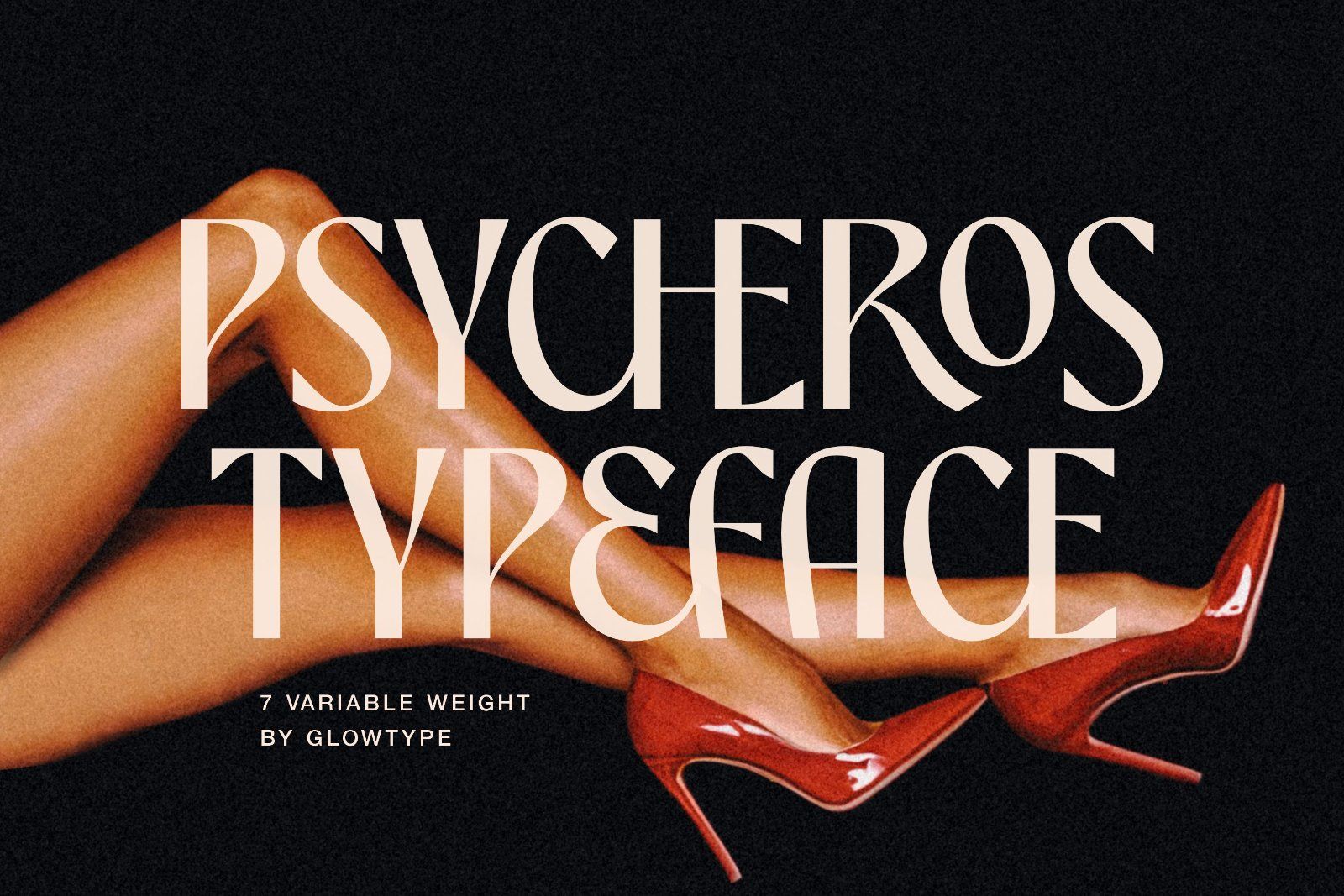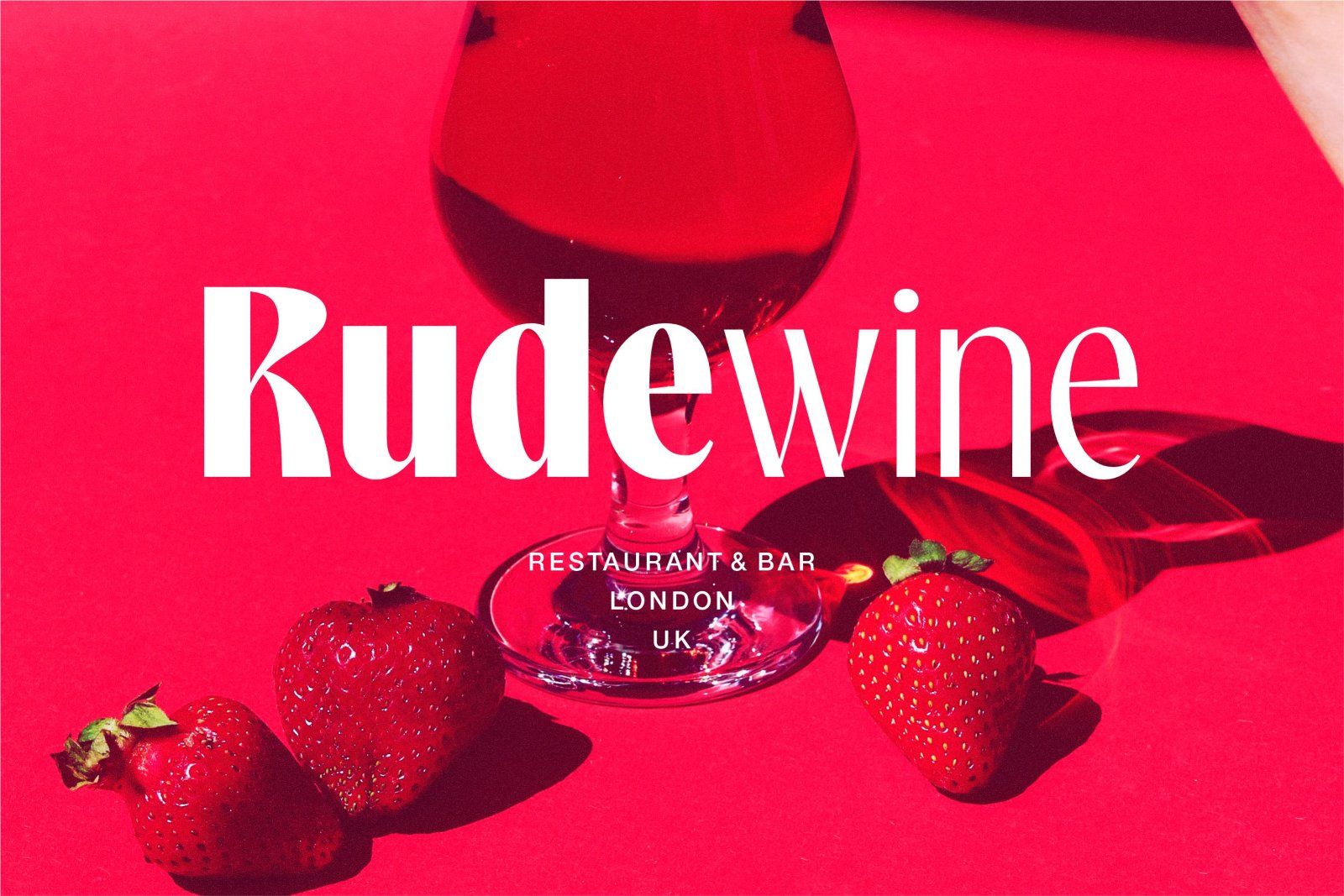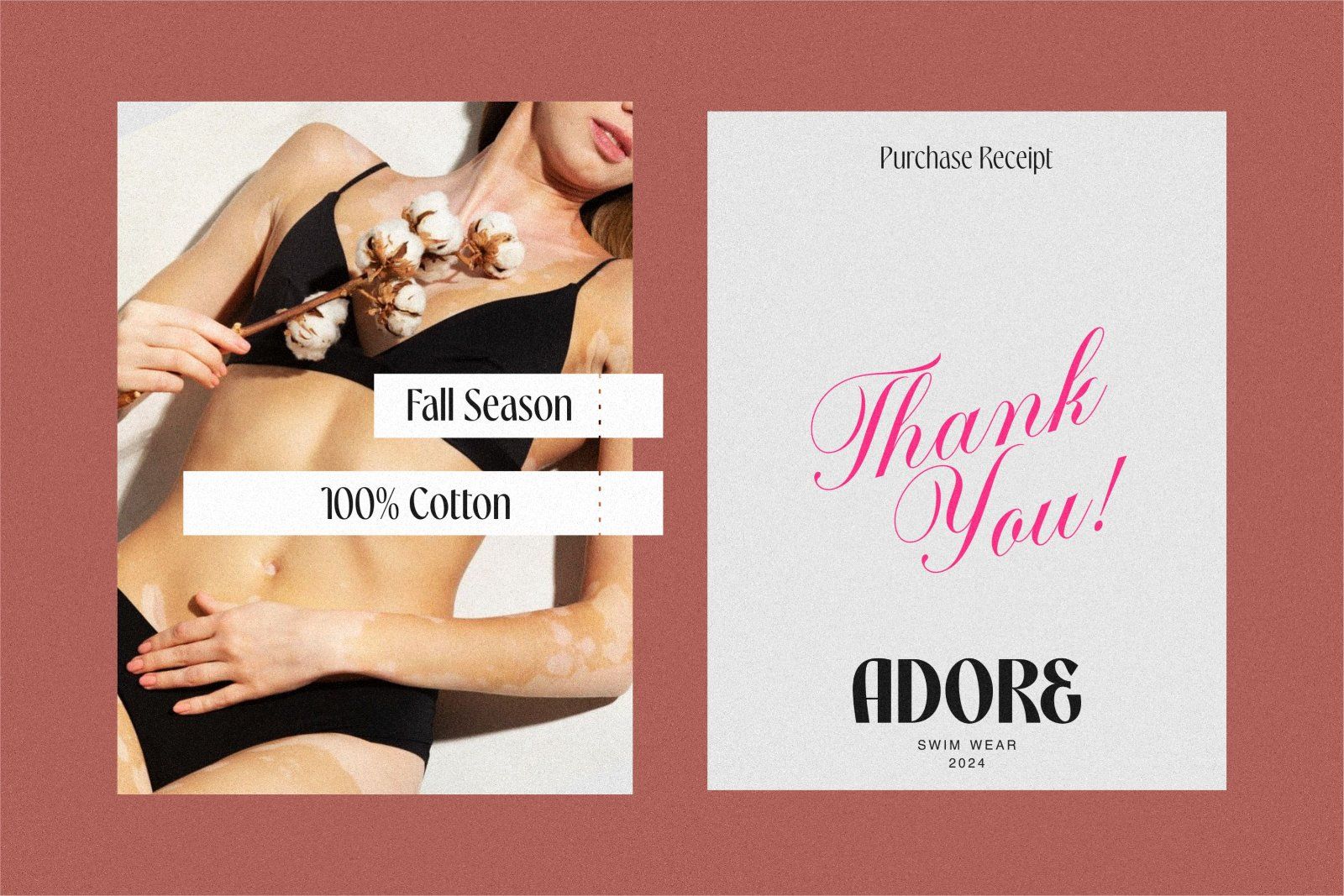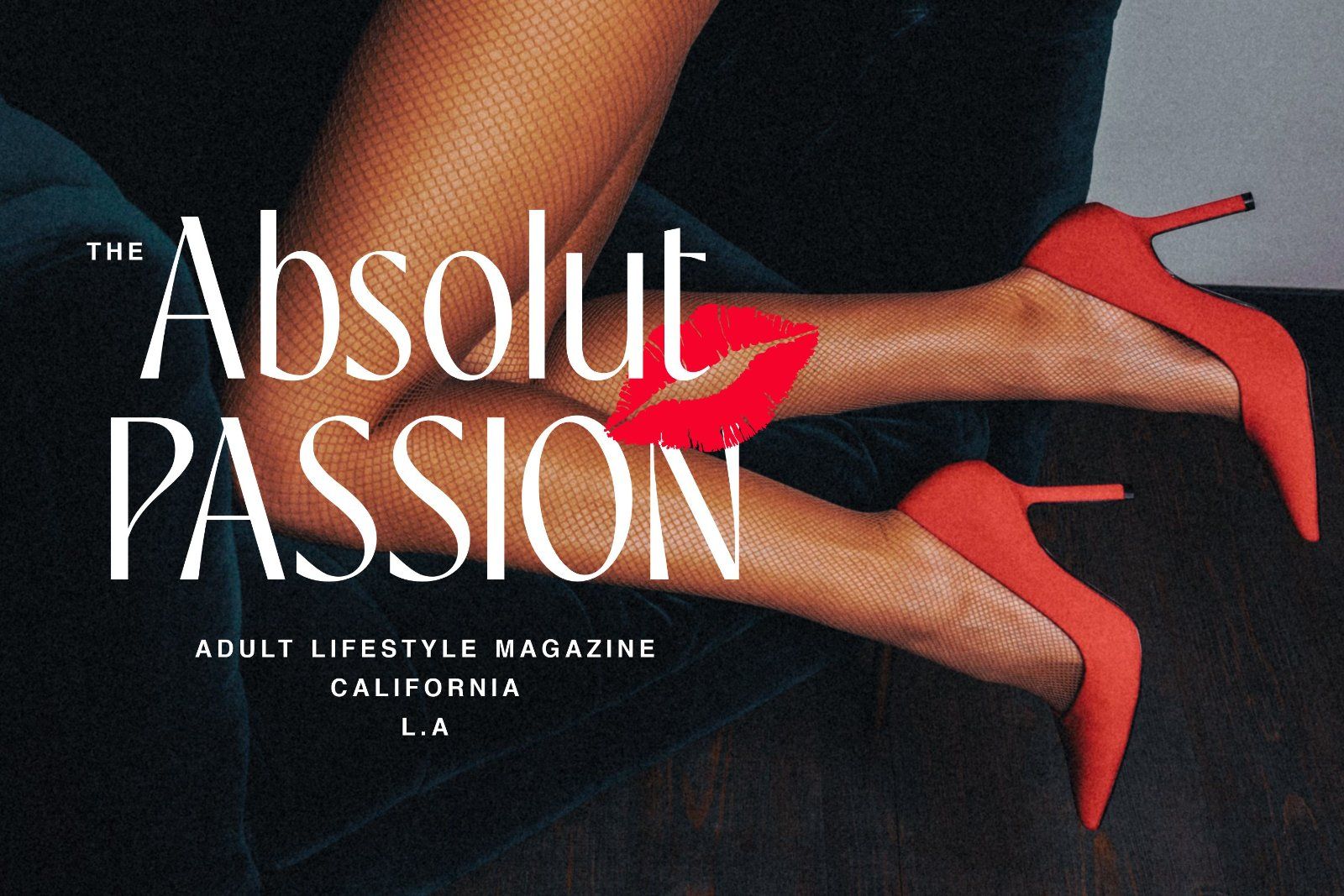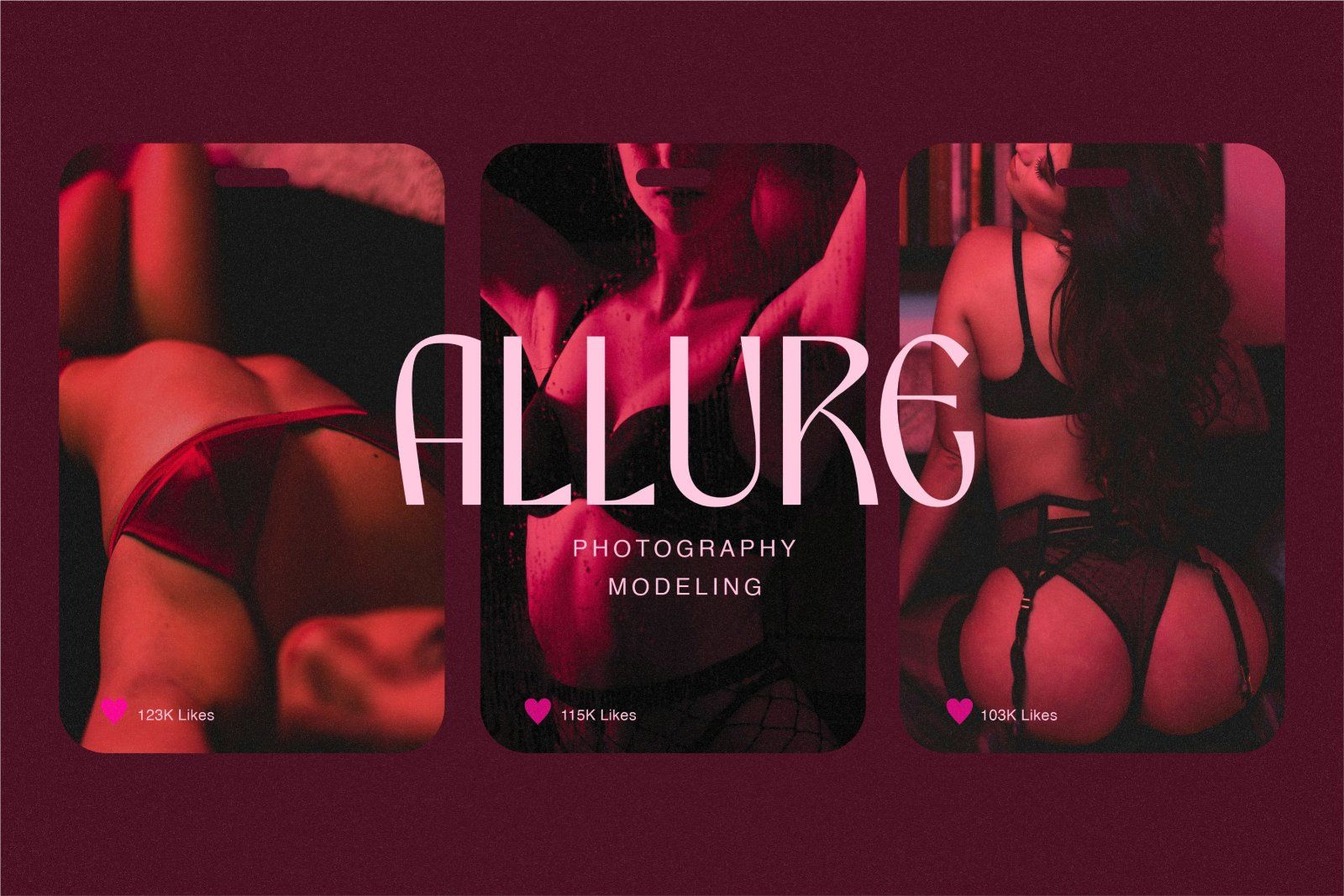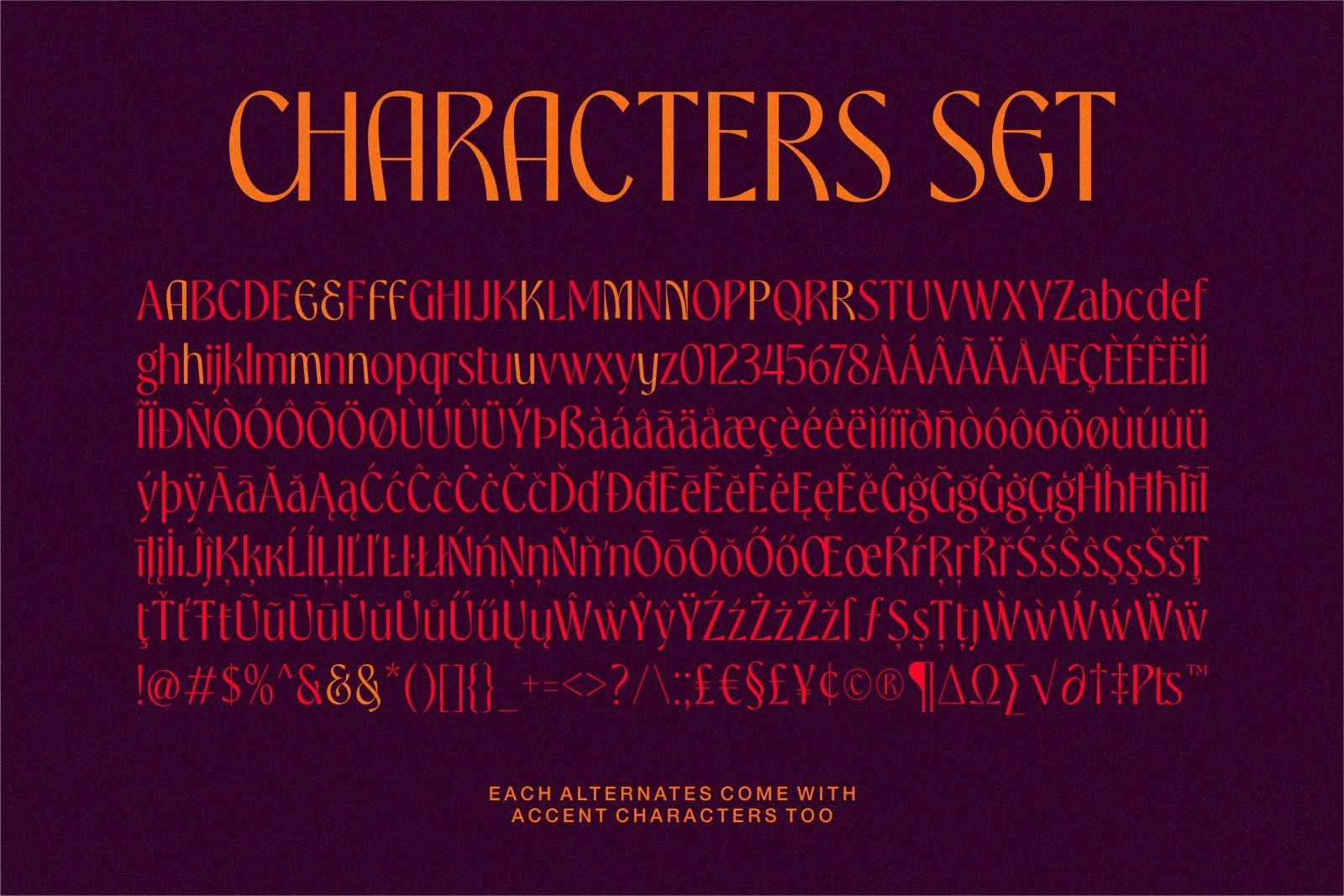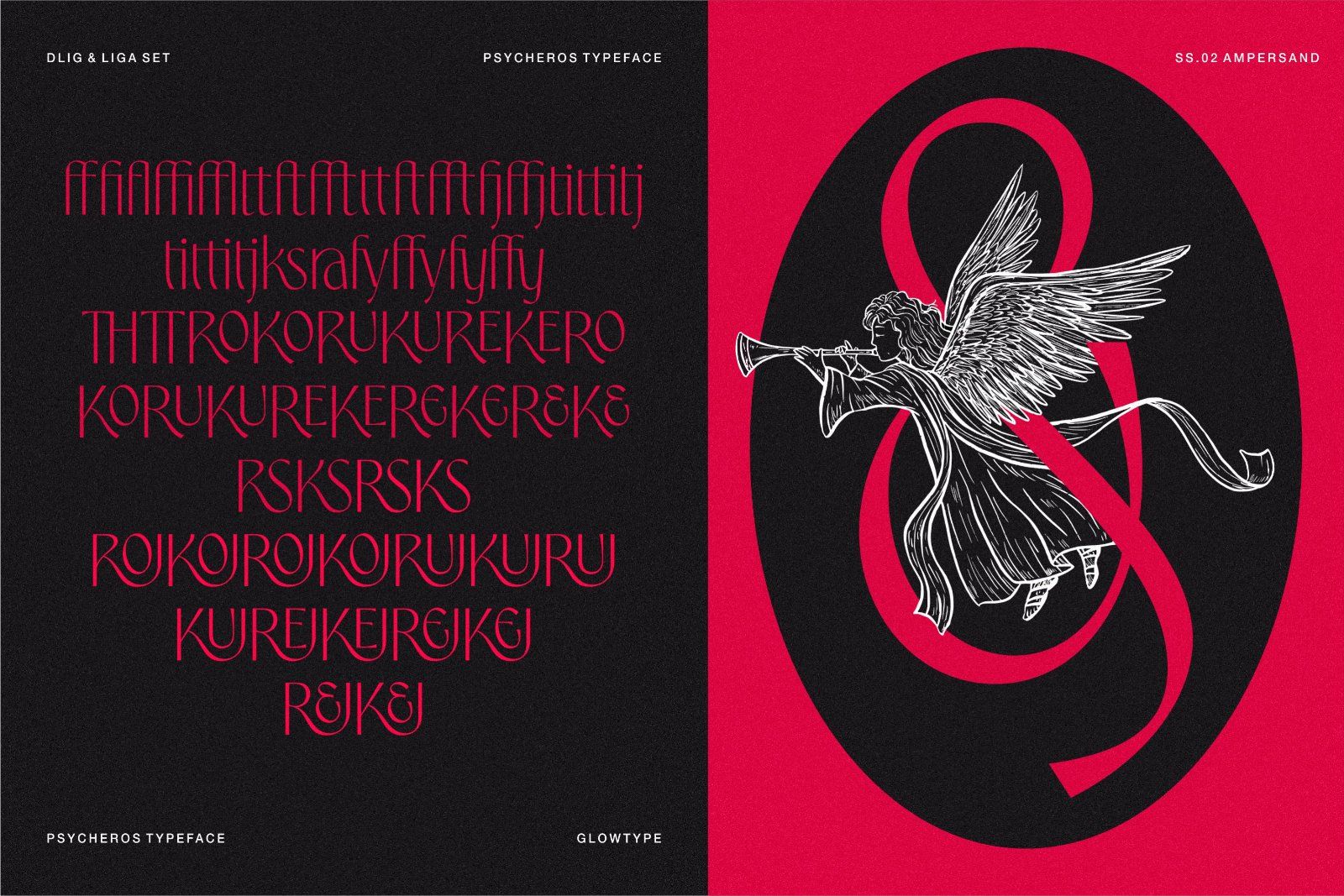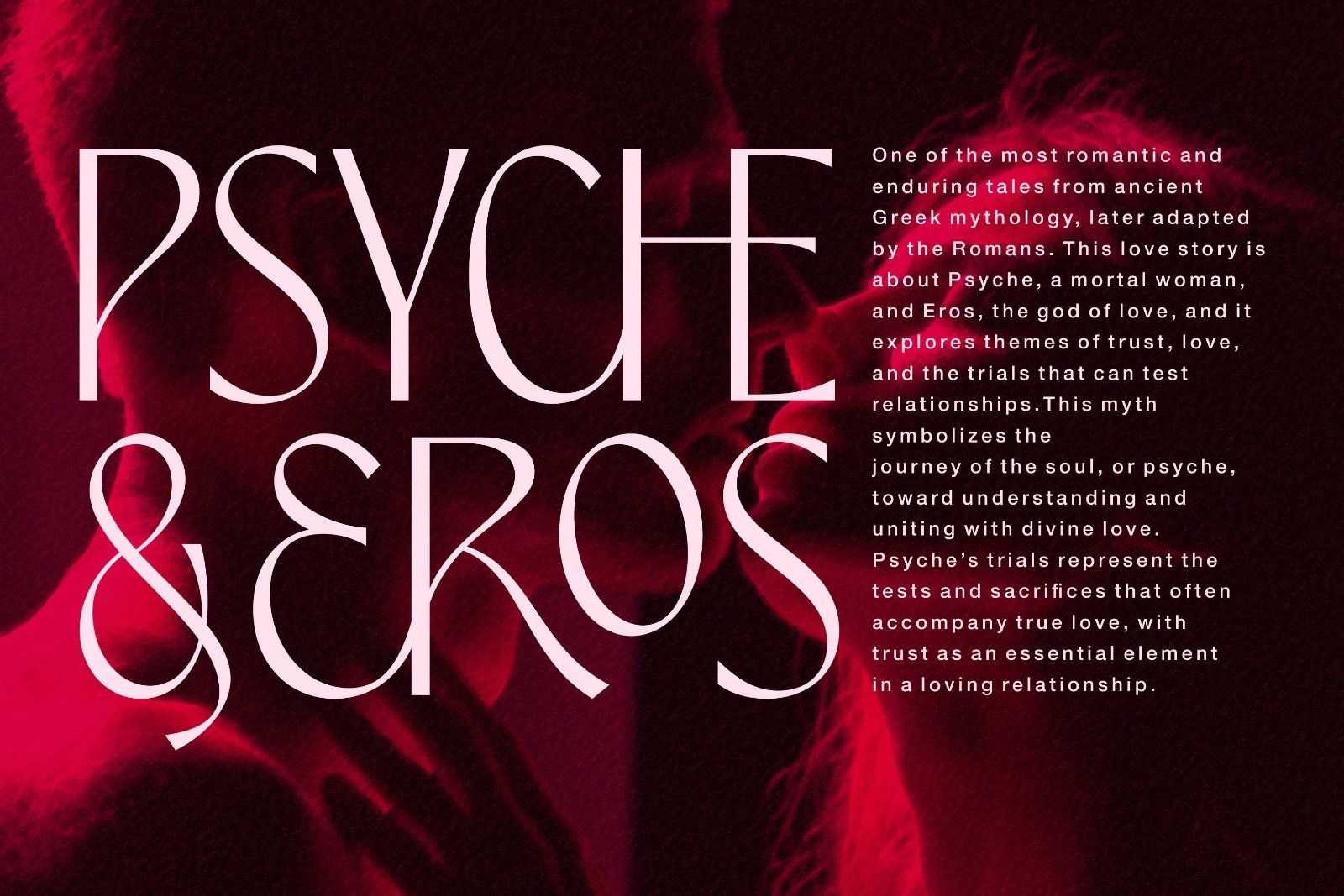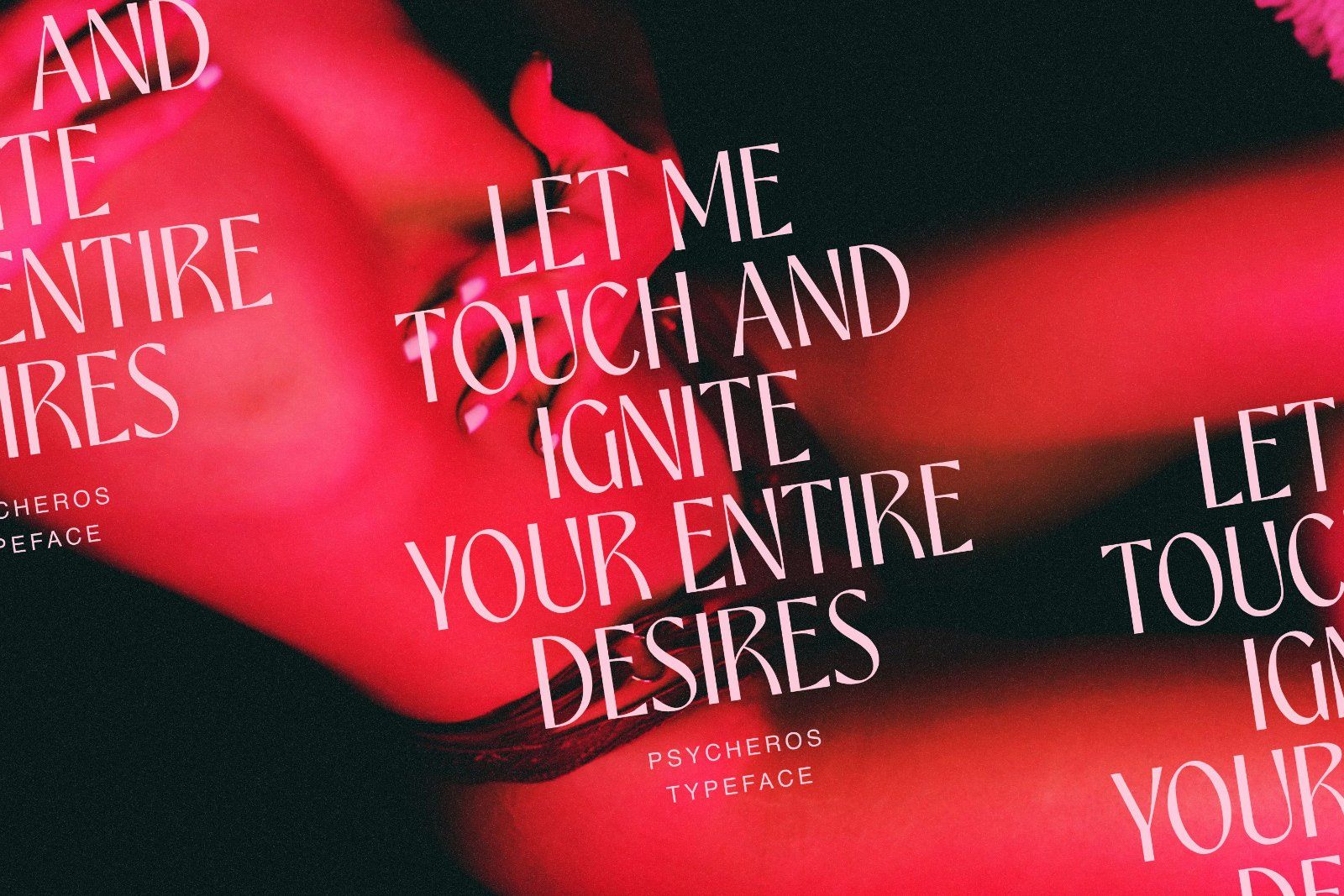
PSYCHEROS is a striking, sophisticated typeface inspired by the myth of Psyche and Eros—symbolizing love, desire, and soul. True to its name, PSYCHEROS captures these themes with elegance and boldness. Its condensed body and tall x-height make a dramatic impact, giving it a presence that stands out with refined luxury and a glamorous edge.
Available in 7 variable weights, PSYCHEROS is highly versatile, allowing designers to experiment with light, delicate styles or heavier, more pronounced ones. Its structure combines graceful curves and defined lines that evoke a sense of modern sensuality, making it ideal for high-end fashion branding, luxury packaging, and editorial layouts. With its distinctive design, PSYCHEROS brings a sexy, luxurious, and captivating allure to any creative project, embodying a timeless blend of style and sophistication.